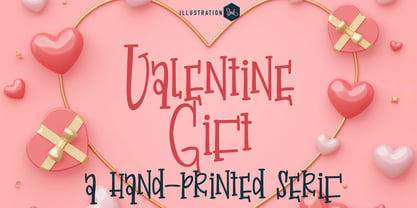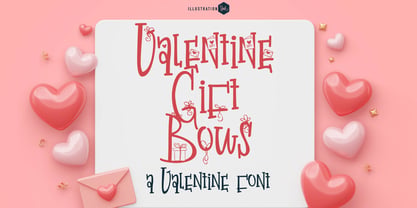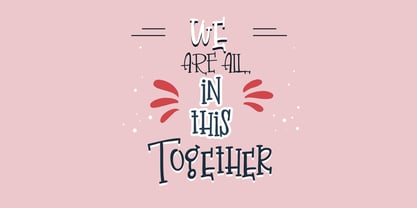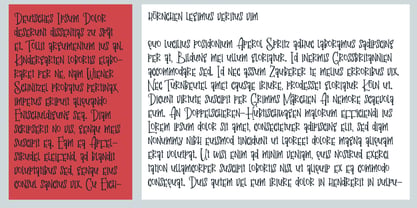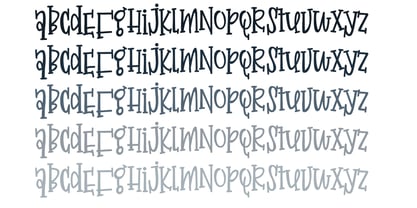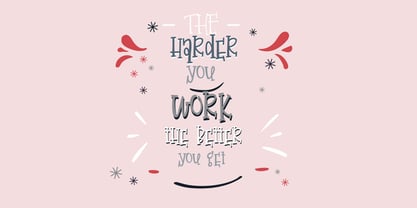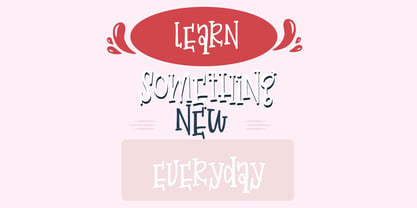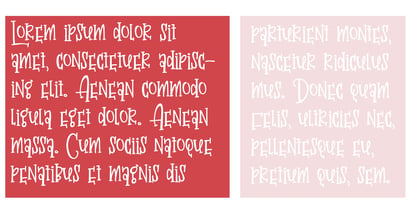
PN Valentine Gift
by Illustration Ink
The PN Valentine Gift Font Family was designed by Illustration Ink and published by Illustration Ink. PN Valentine Gift contains 8 styles and family package options. More about this family
This hand-crafted font trio is a whimsical hand-written print with several family members sporting bows. Hand-crafted fonts can be either formal or informal, and they can be used for a variety of purposes. Some of the characteristics of handwritten fonts include: The letters are not perfectly uniform in size or shape. There may be slight variations in the spacing between letters and words. The font may have a "wiggly" or "squiggly" appearance. The font may be difficult to read at small sizes. Handwritten fonts can be a great way to add a casual touch to your designs. They can also be used to create a sense of nostalgia or whimsy. However, it is important to choose a handwritten font that is appropriate for the project you are working on. A formal handwritten font may not be appropriate for a casual invitation, while an informal handwritten font may not be appropriate for a corporate document.
Designers: Illustration Ink
Foundry: Illustration Ink
PN Valentine Gift